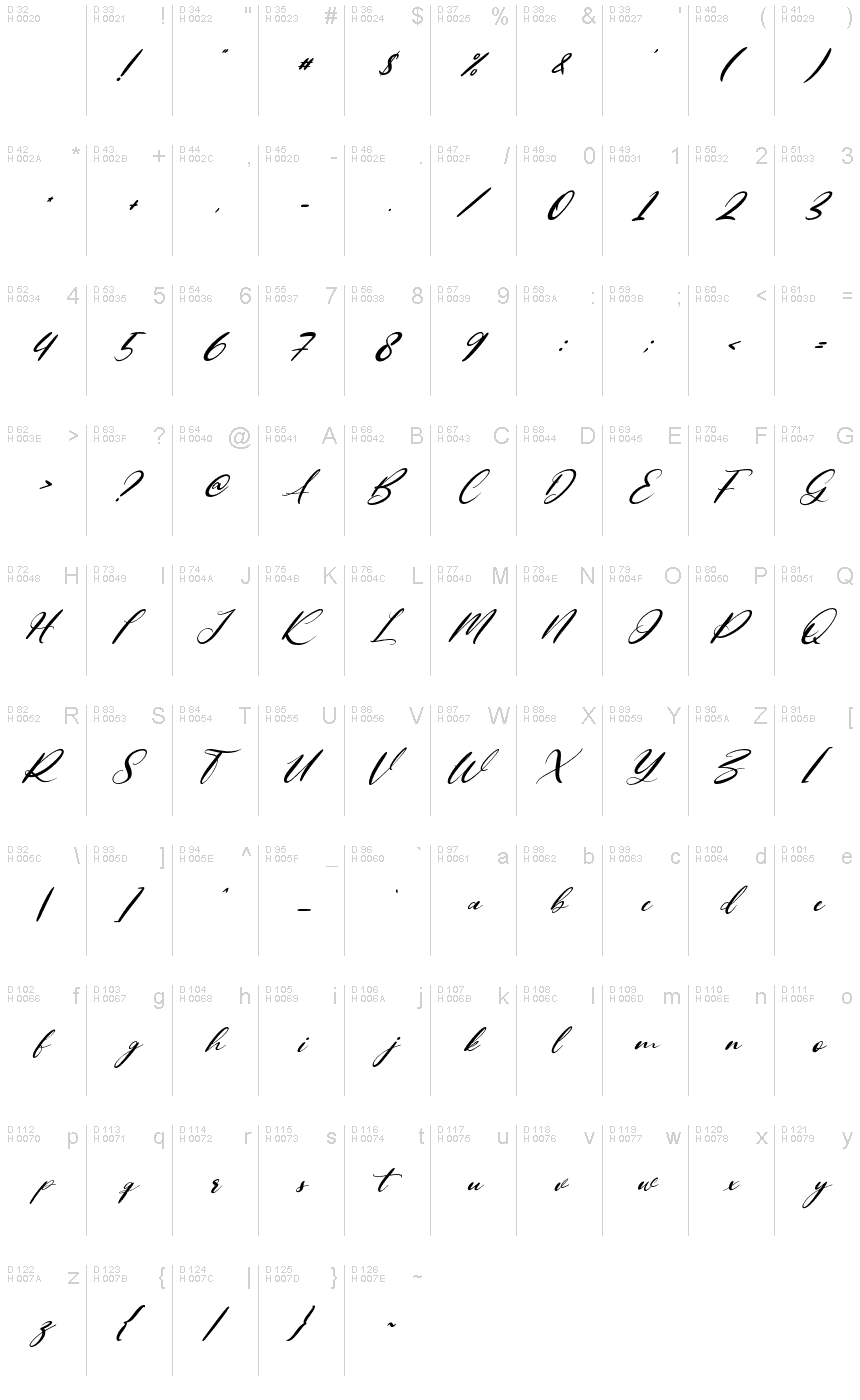
Asortings
Asortings is a narrow calligraphy script font designed by MaulanCreative. Perfect for elegant invitations and logo designs, Asortings adds an exquisite touch to any project.